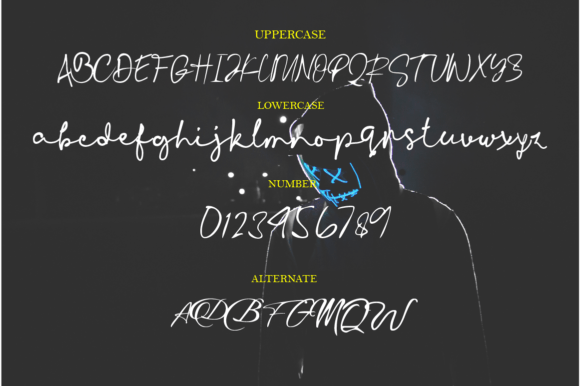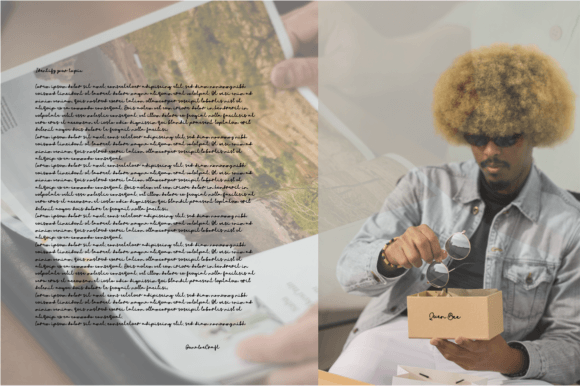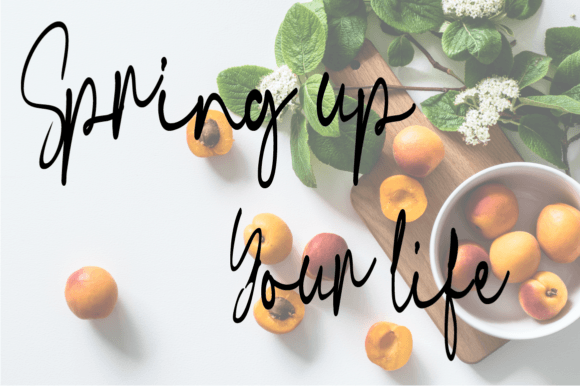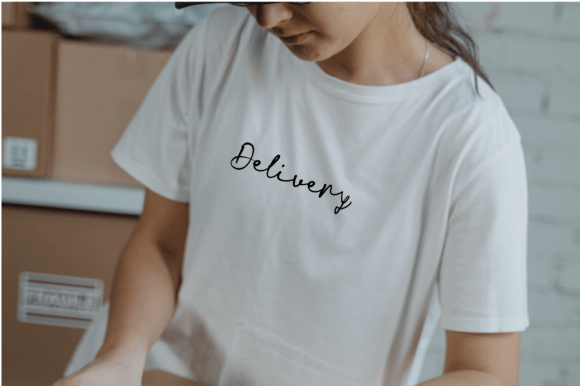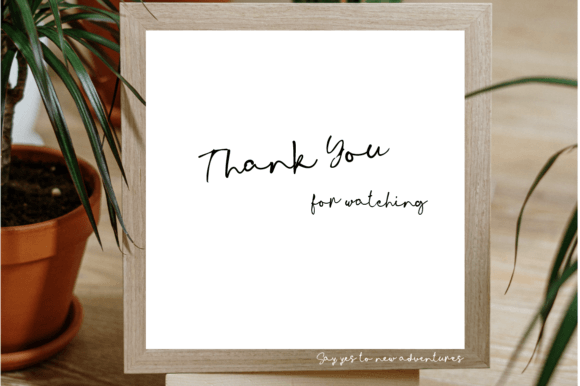
Discover the Charm of Geulanteu Font: Adding a Touch of Handwritten Whimsy to Your Designs
In the world of typography, fonts play a crucial role in conveying the tone and personality of a design. For those seeking to infuse their projects with a sense of authenticity and personal touch, the Geulanteu font is an excellent choice. This unique typeface brings an untamed, artistic vibe that is sure to capture the attention of designers, crafters, and anyone looking to add a dash of whimsy to their work.
The Essence of Geulanteu Font
Geulanteu font is characterized by its messy, handwriting-like strokes and artistic imperfections. Unlike polished, conventional fonts, Geulanteu offers a refreshingly raw and casual aesthetic that can instantly elevate the charm of your designs. Its untamed nature makes it perfect for projects that require a personal, human touch, such as:
- Invitations: Add a playful twist to your party invites, wedding announcements, or baby shower notifications.
- Notes and Letters: Make your handwritten notes, letters, or journal entries stand out with a distinctive, artistic flair.
- Creative Projects: Infuse your artwork, illustrations, or crafts with a unique personality that sets them apart.
What Makes Geulanteu Font Stand Out?
So, what sets Geulanteu apart from other fonts? Here are a few key features that make it a standout choice:
- Authentic Handwritten Look: Geulanteu’s strokes are designed to mimic the natural flow of handwriting, complete with subtle imperfections and variations.
- Artistic Freedom: The font’s messy, artistic vibe gives you the freedom to experiment with different design styles and creative expressions.
- Versatility: Geulanteu can be used for a wide range of projects, from digital designs to print materials, and even handmade crafts.
- Unique Character: The font’s distinctive personality ensures that your designs will stand out from the crowd and leave a lasting impression.
How to Use Geulanteu Font Effectively
To make the most of Geulanteu font, consider the following tips:
- Pair with Complementary Fonts: Combine Geulanteu with cleaner, more minimalist fonts to create visual interest and balance.
- Experiment with Colors: Play with different color schemes to enhance the font’s artistic vibe and match your design’s tone.
- Emphasize Key Elements: Use Geulanteu to draw attention to important details, such as headings, titles, or calls-to-action.
- Keep it Simple: Avoid overusing Geulanteu; instead, use it sparingly to add a touch of personality to your design.
Geulanteu font offers a refreshing alternative to traditional typography, bringing a unique blend of artistic imperfections and handwritten charm to your designs. Whether you’re a designer, crafter, or simply someone looking to add a personal touch to your projects, Geulanteu is an excellent choice. With its versatility, unique character, and authentic look, this font is sure to inspire creativity and elevate your work to the next level.
So, why settle for ordinary fonts when you can add a dash of whimsy and personality to your designs? Discover the charm of Geulanteu font and unlock a world of creative possibilities.